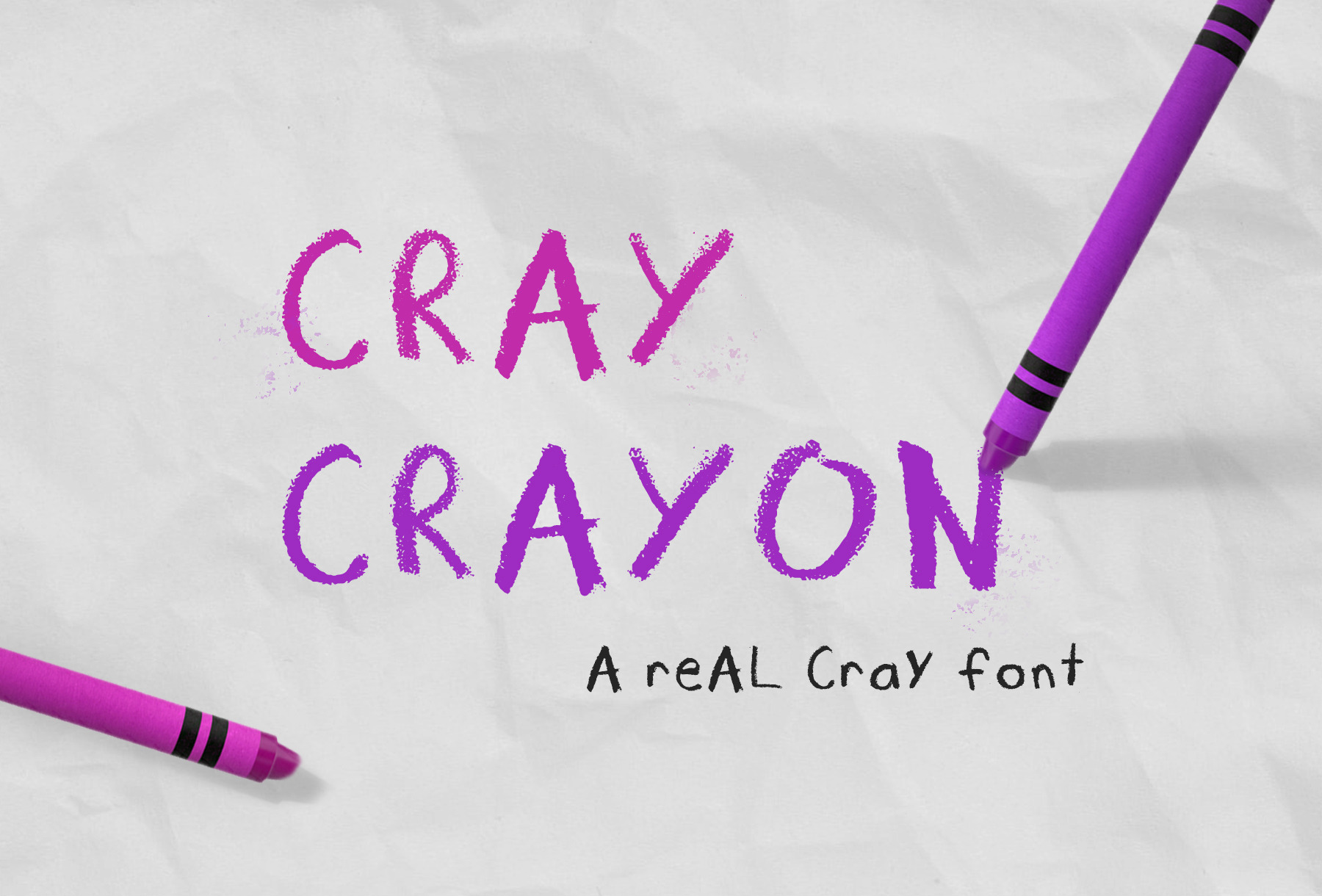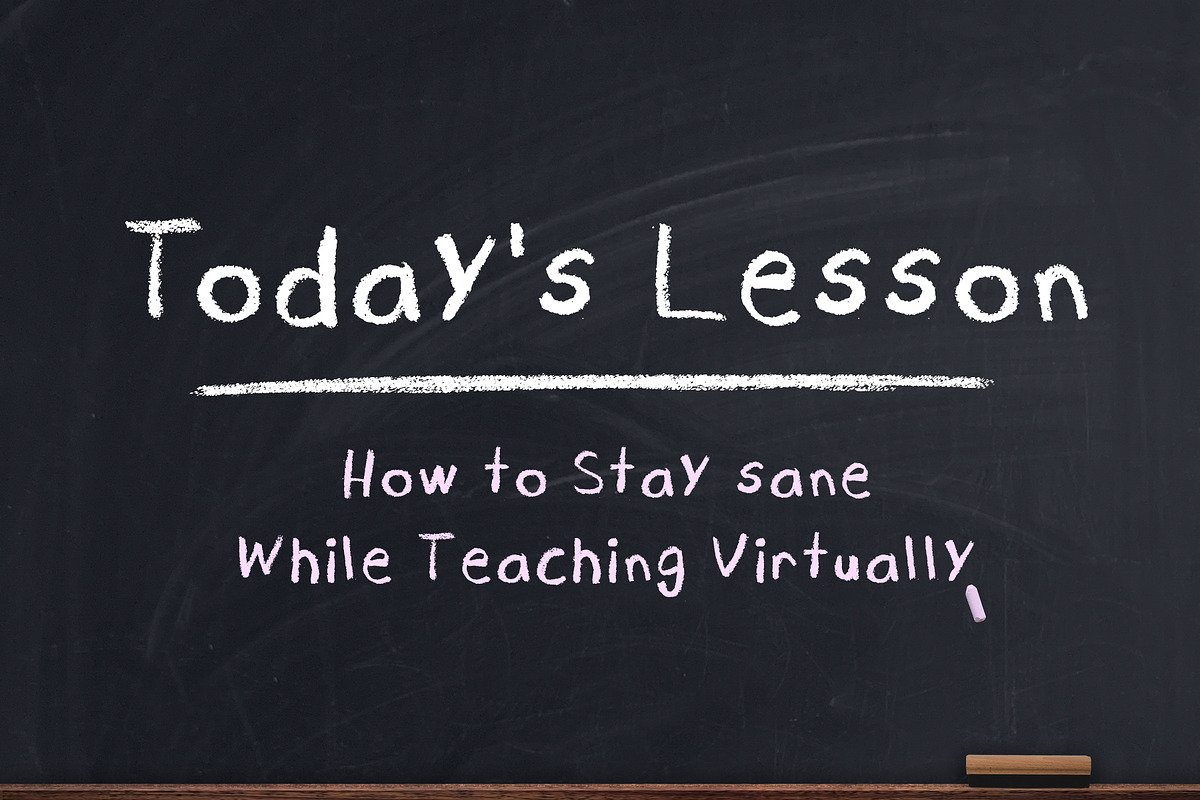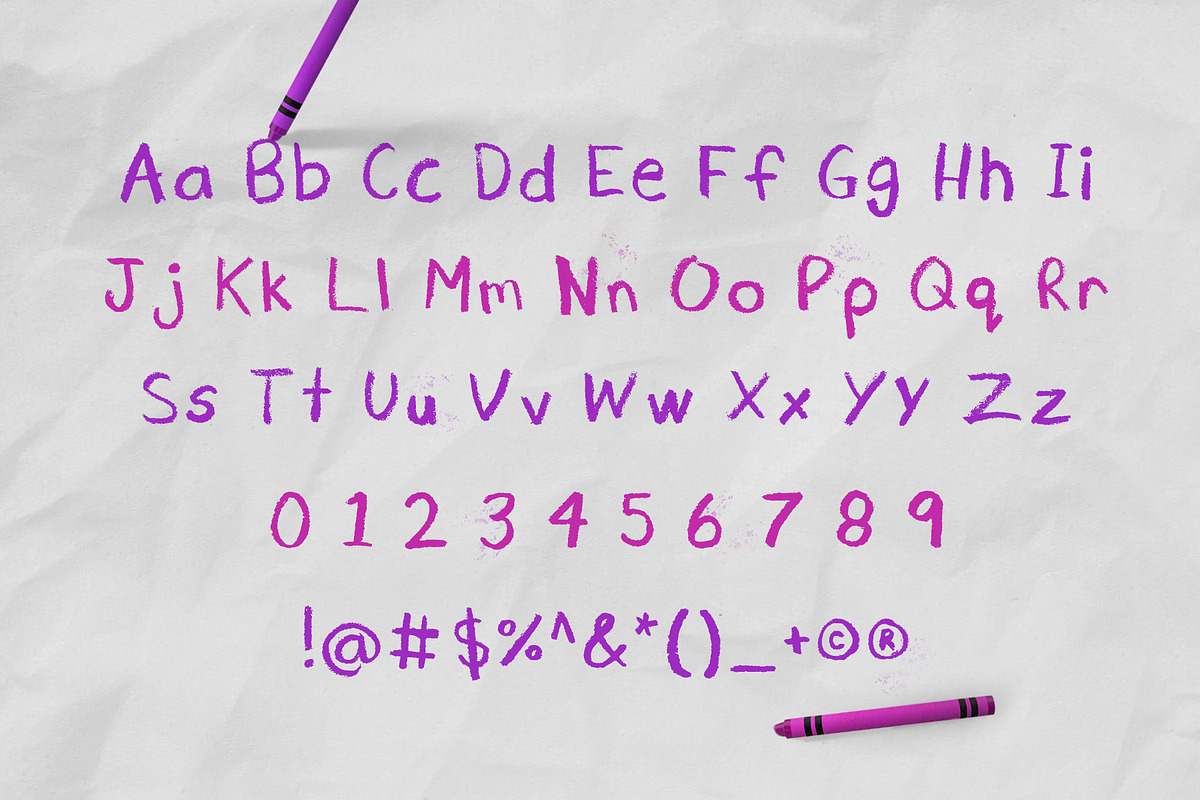
Cray Crayon Font
Cray Crayon is a hand-drawn crayon font that helps you have a little fun with your designs!
Use this font to create an instantly relatable design… 'cause let's face it, things are a little cray these days.